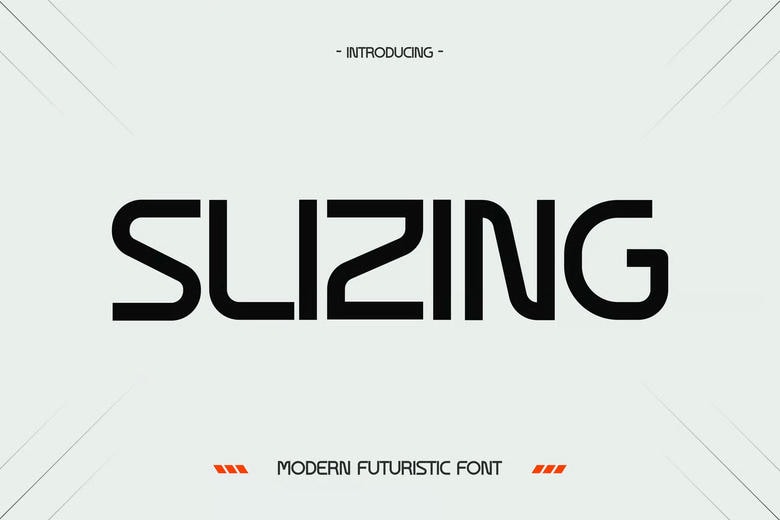
Slizing Font
Slizing is a tech display typeface that is aimed at the use by the modern technology brands, with its harshly angular lines, its geometric constructions and its lack of contrast strokes, which seem accurate and future-oriented. It has a bold, digital, and confident touch, which is entirely appropriate in the context of tech-companies, video game visuals, startup branding, and futuristic editorial layouts.
The letterforms are neat and organized, having straight edges and well thought out proportions which make the headlines, interfaces, and promotional graphics clear and effective. Slizing assists technology-oriented companies to talk the language of innovation.
This type is used in posters, editorial layout, app UI header, game visuals, or even the display of innovations, and it gives a strong, futuristic impression. Its strict geometry and regulated distance of spacing captures attention and it is a complete asset to the designers that desire to convey intelligence, speed, and modernity just by looking at it.
Slizing Display Font